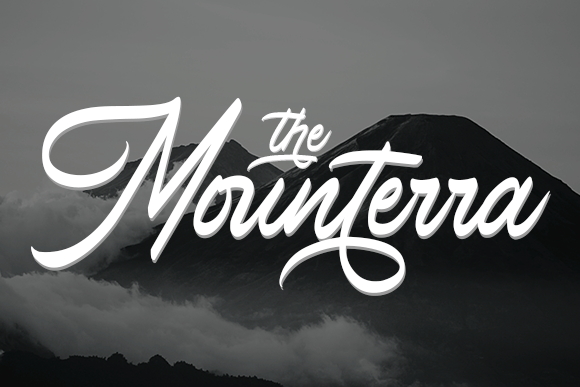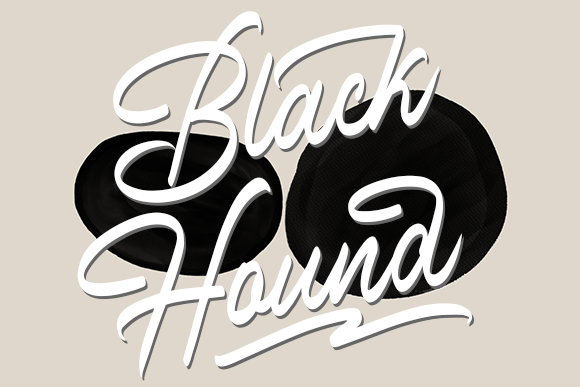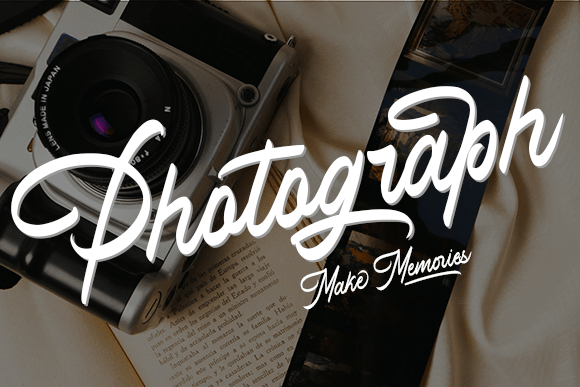
Introduction to Ramelo Font
As a designer, there’s nothing quite like the thrill of creating a new project from scratch. The blank canvas stares back at you, begging to be filled with life and personality. But sometimes, all it takes is one perfect font to bring your vision to life. For many creatives, that perfect font is the Ramelo Font – a timeless masterpiece that effortlessly blends modern style with traditional elegance.
Infused with a chic, feminine essence, the Ramelo Font is a design resource that truly stands out from the crowd. Whether you’re crafting a high-end brand persona or creating a fairytale-like wedding invitation, this beautiful font is sure to add a touch of sophistication and professionalism to your work. With its sleek curves and ornate swashes, the Ramelo Font is a high-quality addition to any creative project – and the best part? It’s available for free download with a transparent background, making it easy to integrate into your designs.
Key Features of Ramelo Font
- High-quality design resource with a unique, modern aesthetic, ideal for creative projects.
- Perfect for use in a variety of design applications, including logos, typography, and branding materials.
Honest Review: Ramelo Font
I recently came across the Ramelo Font, and I must say it’s a great addition to any designer’s toolkit. As a design resource, it’s perfect for creative projects that require a unique and stylish touch.
- High-quality design: The Ramelo Font is well-designed and looks great on a variety of backgrounds, including transparent backgrounds.
- Modern feel: The font has a modern feel that’s perfect for contemporary designs.
- ⚠️ Limited character set: The font doesn’t have a complete character set, which can be a problem for designers who need to use it for longer texts.
- ⚠️ Not ideal for small text: The font is best used for larger text sizes, as it can become difficult to read at smaller sizes.
Overall, I’m impressed with the Ramelo Font. It’s a great choice for designers who need a high-quality font with a modern feel. While it has some limitations, it’s a great addition to any design library.
Ramelo Font is commonly used in graphic design projects, including logos, icons, and typography-based designs. It’s also great for creating social media graphics, blog headers, and other digital content.